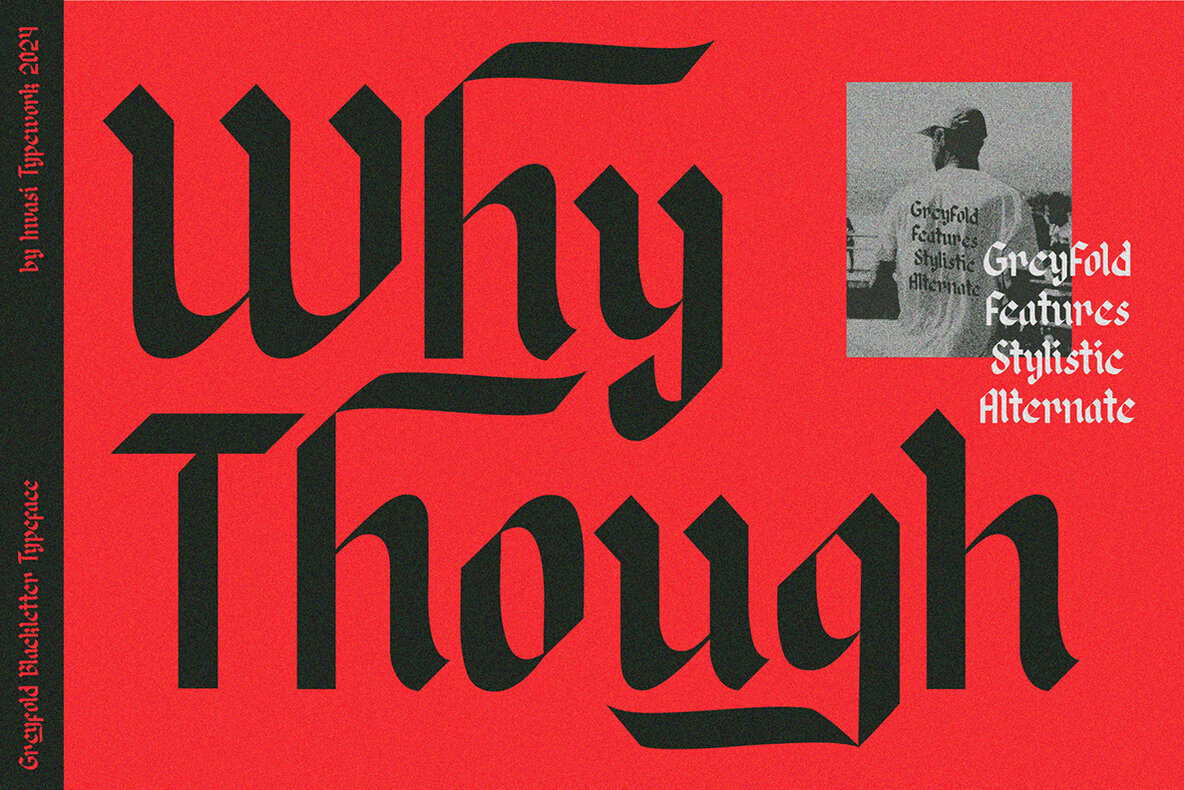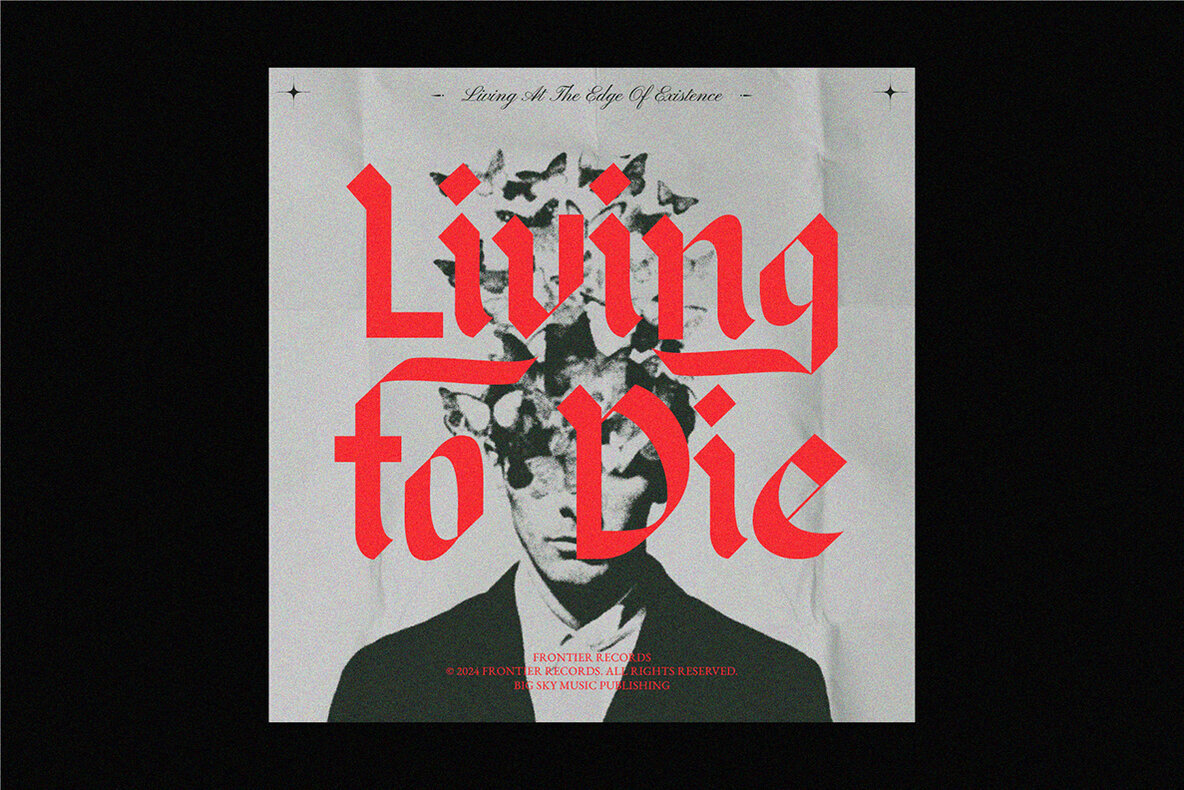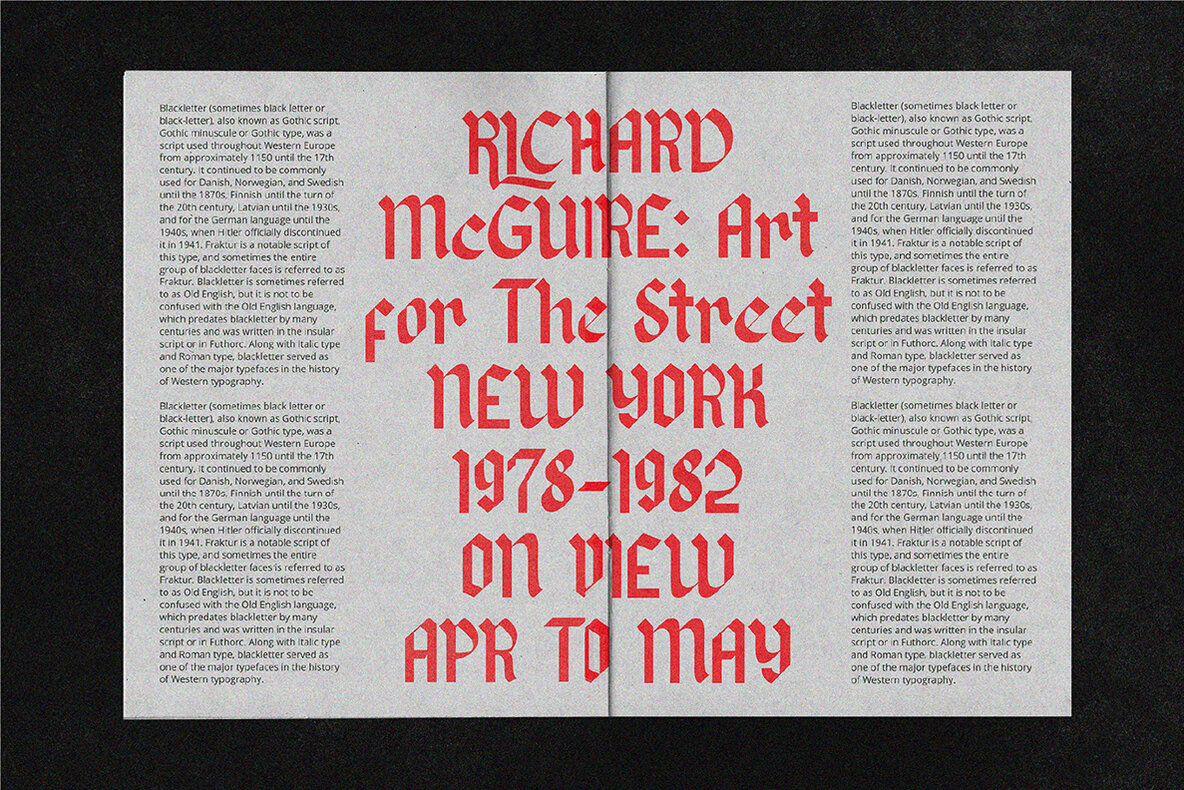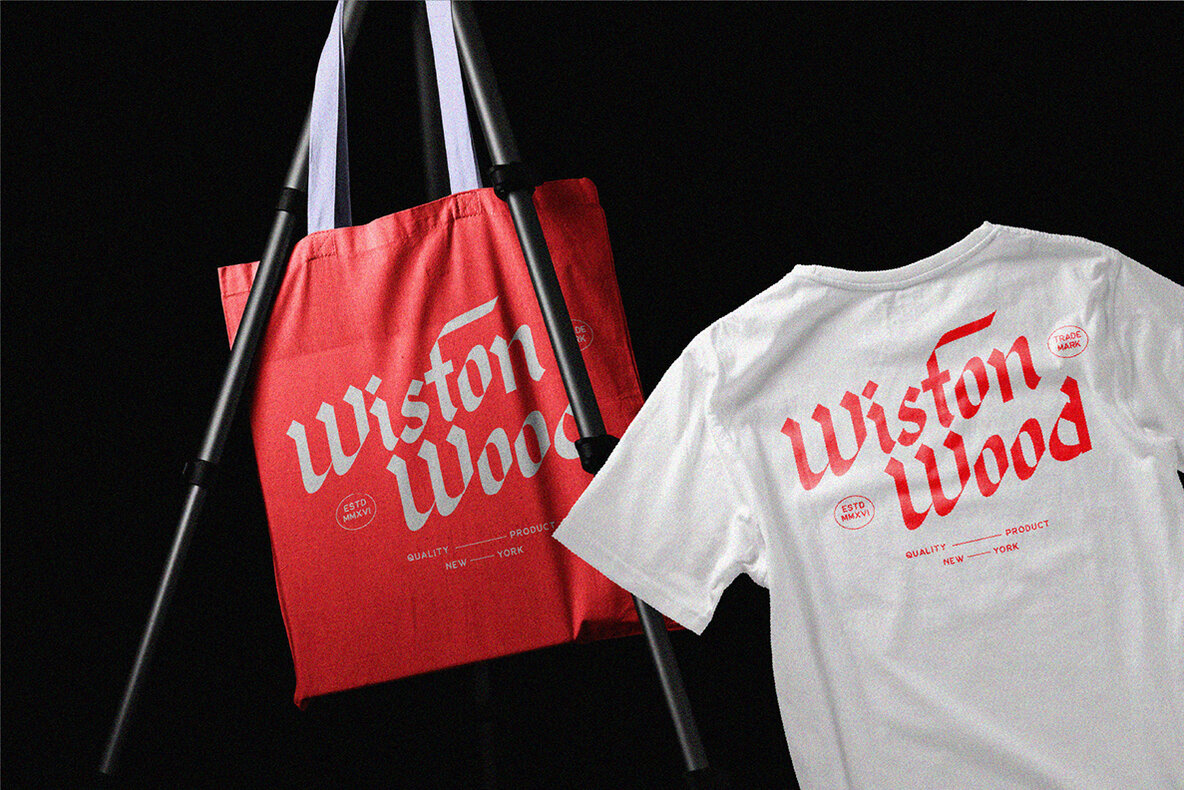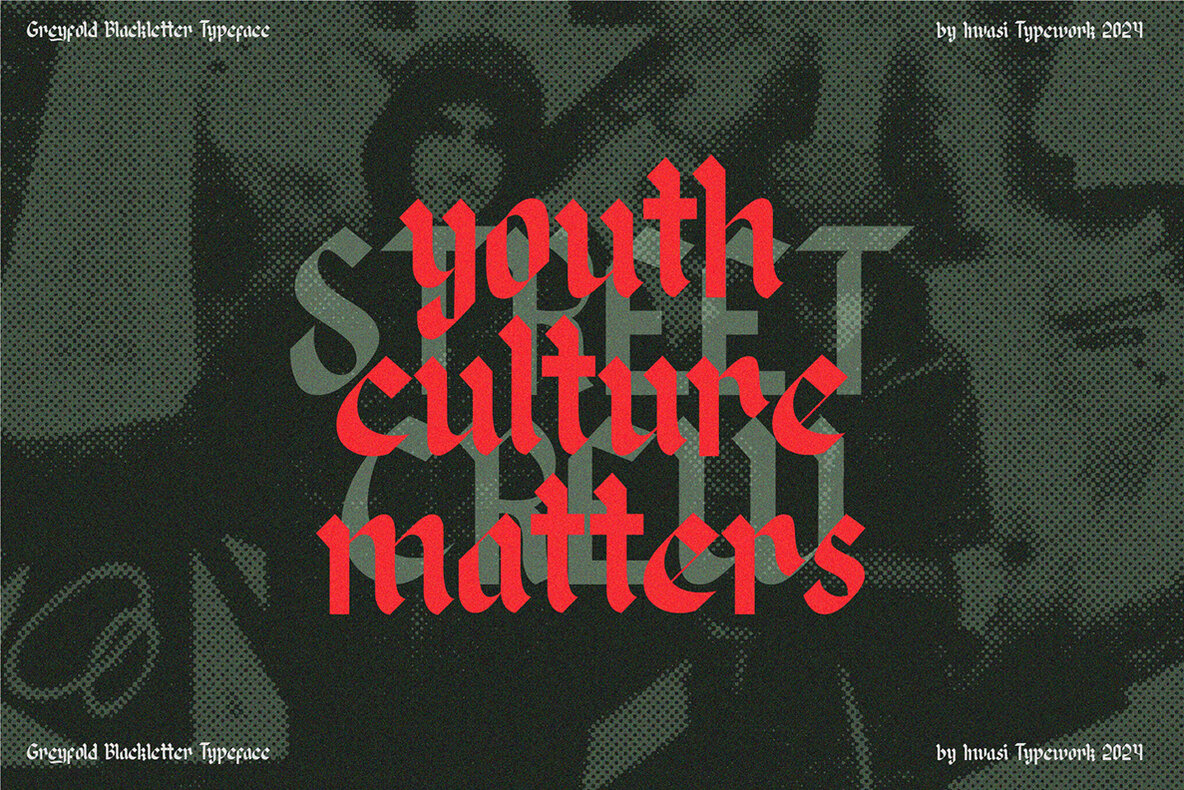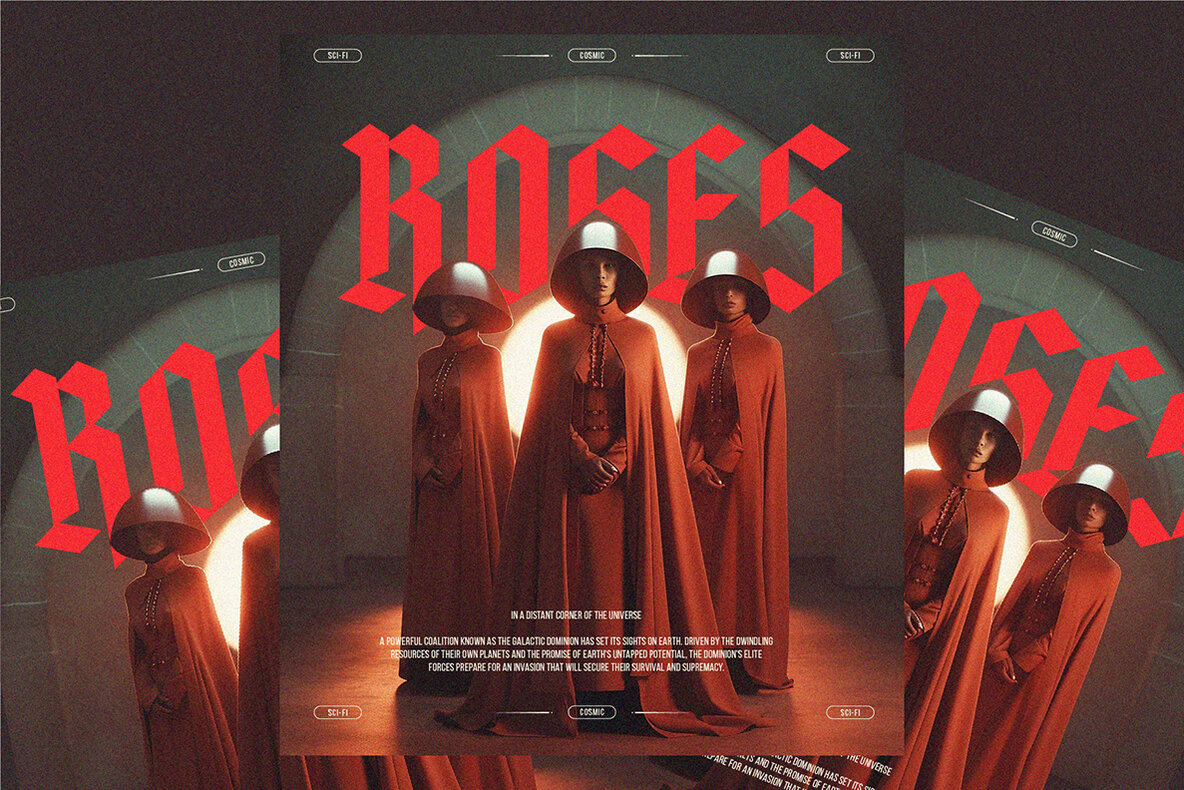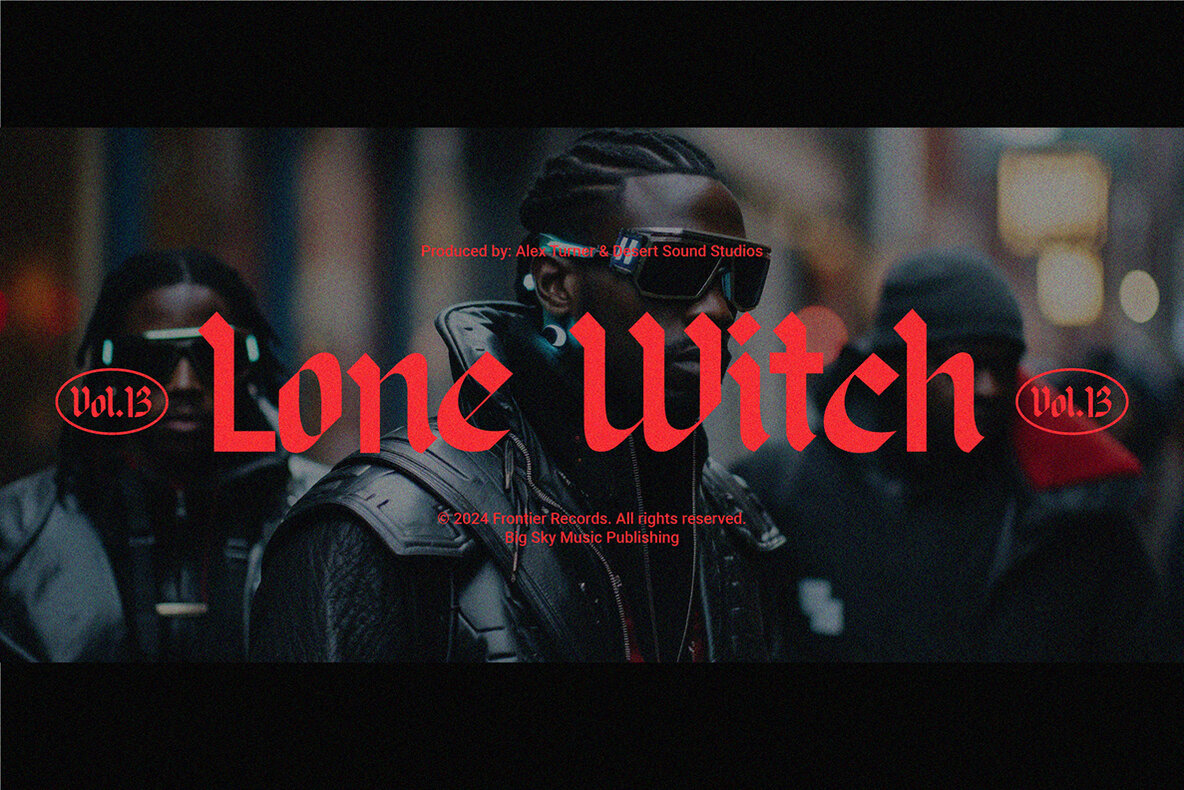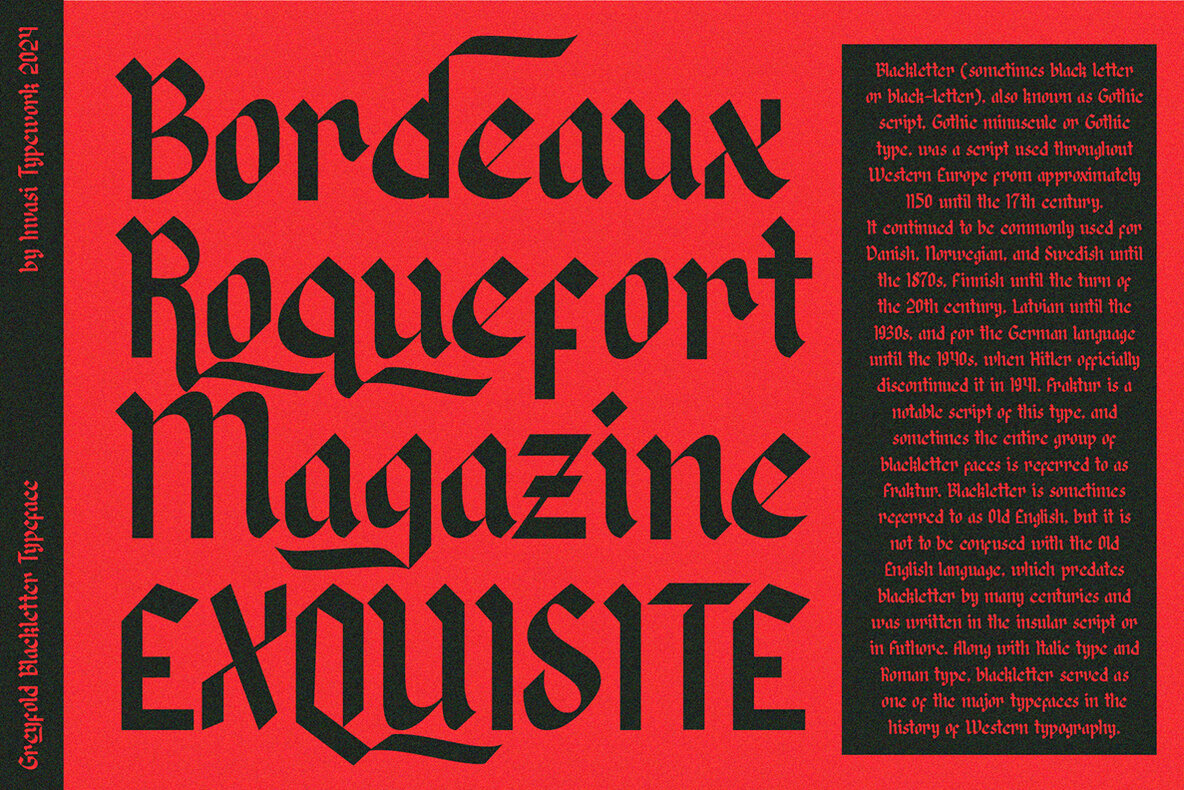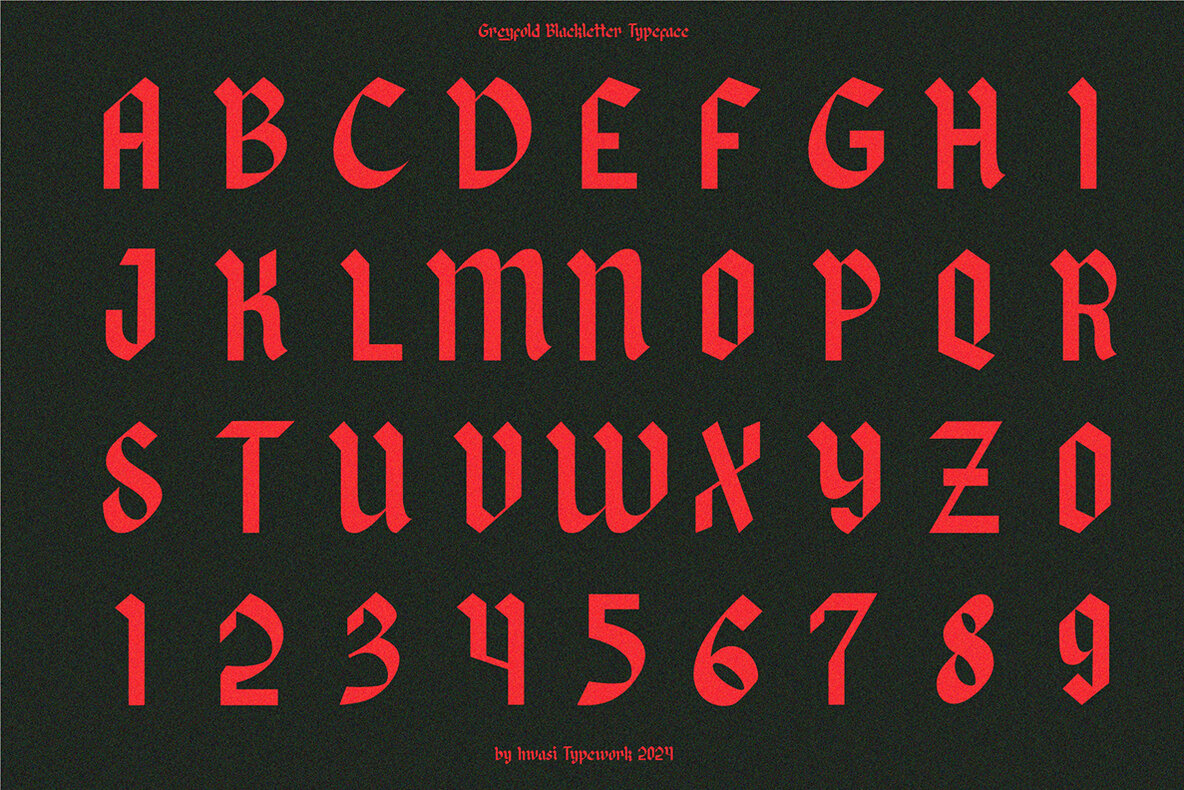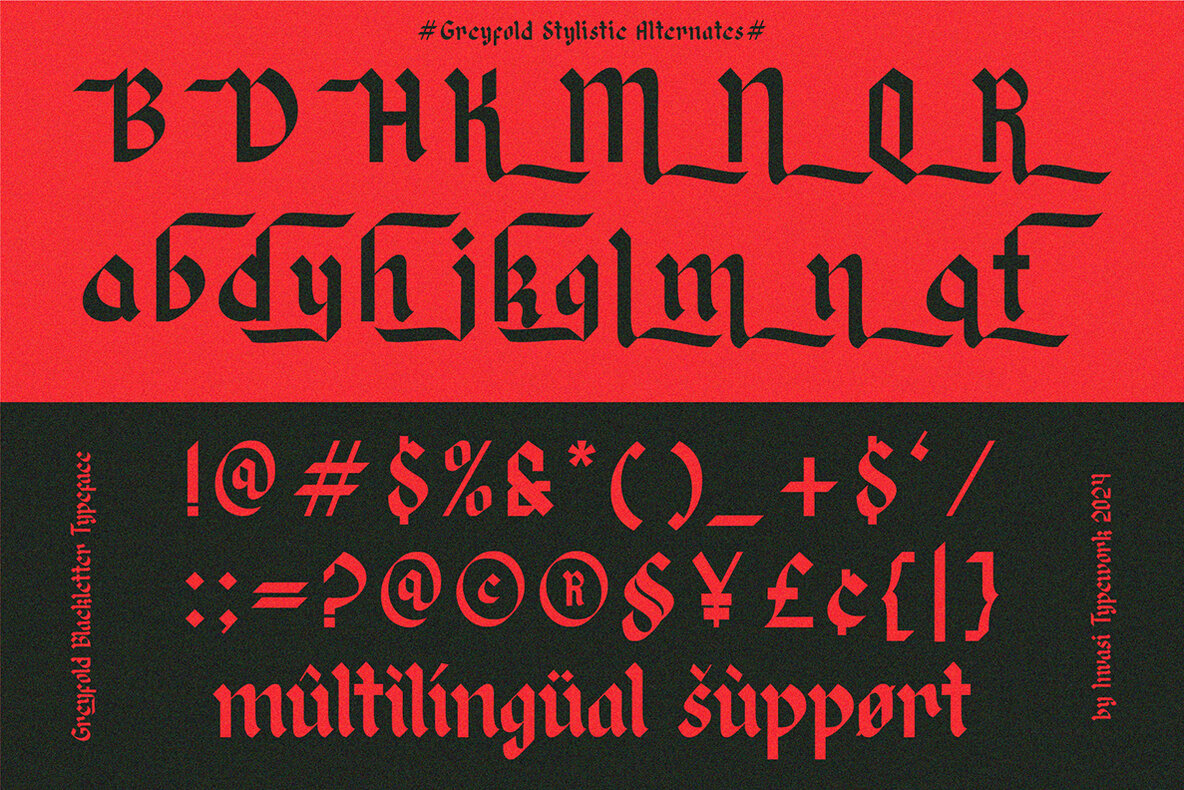
Greyfold Font
Greyfold Regular
Greyfold is where traditional craftsmanship intersects with modern innovation in a unique blackletter font. Drawing inspiration from the gothic allure of fraktur, it embodies centuries of history with a refreshed modern appeal. Each curve and swash is meticulously designed, merging the elegance of the past with a forward-thinking aesthetic. Greyfold's bold strokes demand attention while refined alternates provide versatility, making it a sophisticated choice for diverse design needs.
Whether enhancing headlines with its dramatic presence or transforming logos into timeless icons, Greyfold perfectly balances form and function. This font redefines brand identity and design projects with its bold character and refined styling. More than just a typeface, Greyfold infuses every project with dynamism, turning the ordinary into the extraordinary. Its ability to convey a story through each letter makes it a standout tool for designers seeking to make a distinct impression.